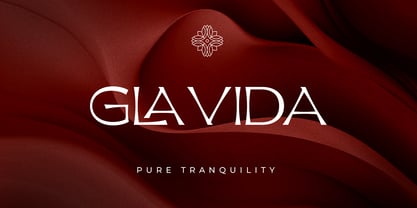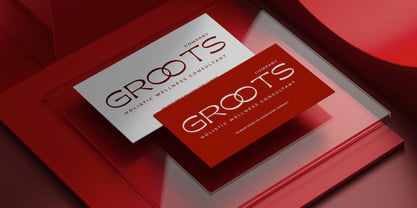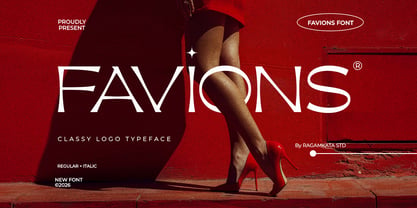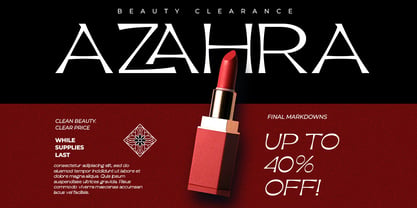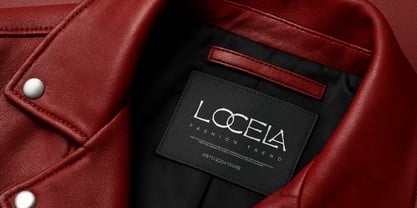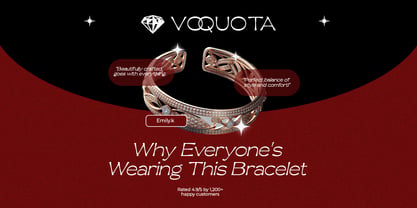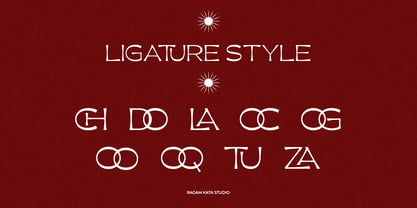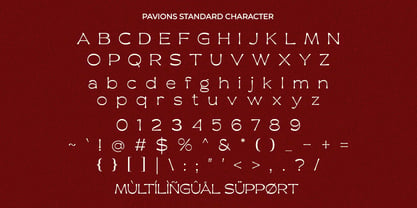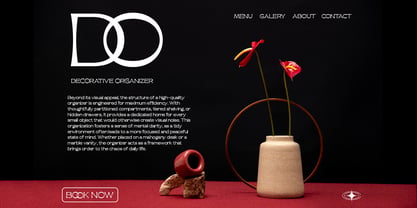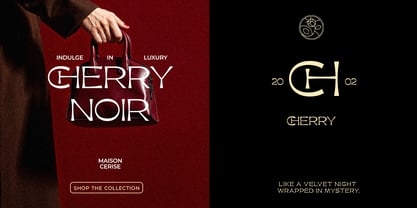
Favions
Favions is a sophisticated logo typeface crafted to elevate modern branding with a bold sense of elegance and confidence. Drawing inspiration from high-fashion aesthetics and luxury visual identity, this typeface achieves a refined balance between minimalism and sophistication. Each curve and line is meticulously designed to create a strong, memorable presence—ideal for brands aiming to stand out with style. Built for versatility, Favions excels across a diverse range of creative projects. Whether for luxury logos, fashion editorials, premium packaging, or social media campaigns, this typeface adapts seamlessly to modern branding systems. Its clean yet expressive form makes it perfect for designers seeking a timeless yet contemporary visual tone. Favions also offers flexibility with its thoughtfully designed letterforms, ensuring smooth readability while maintaining a distinctive character. Whether utilized for headlines or logo marks, it guarantees that your design feels premium, confident, and visually striking in every context.